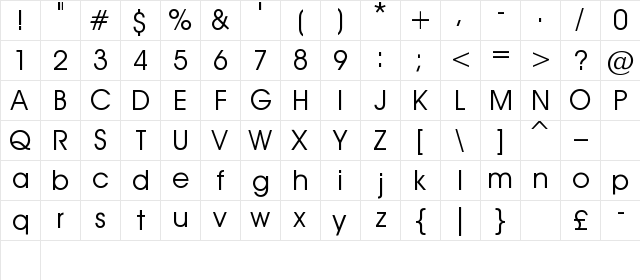
Design Context for Aerolinea Typeface
Aerolinea is a composed and adaptable typeface that performs quietly and consistently across a wide range of design contexts.